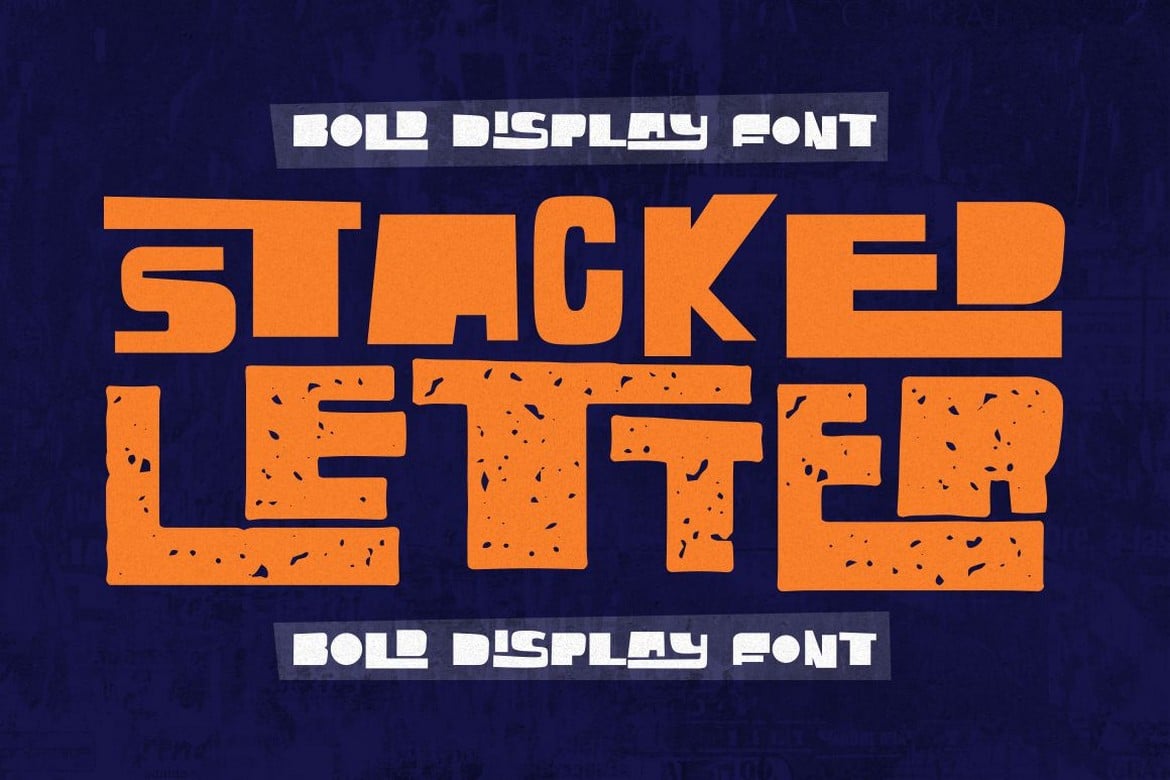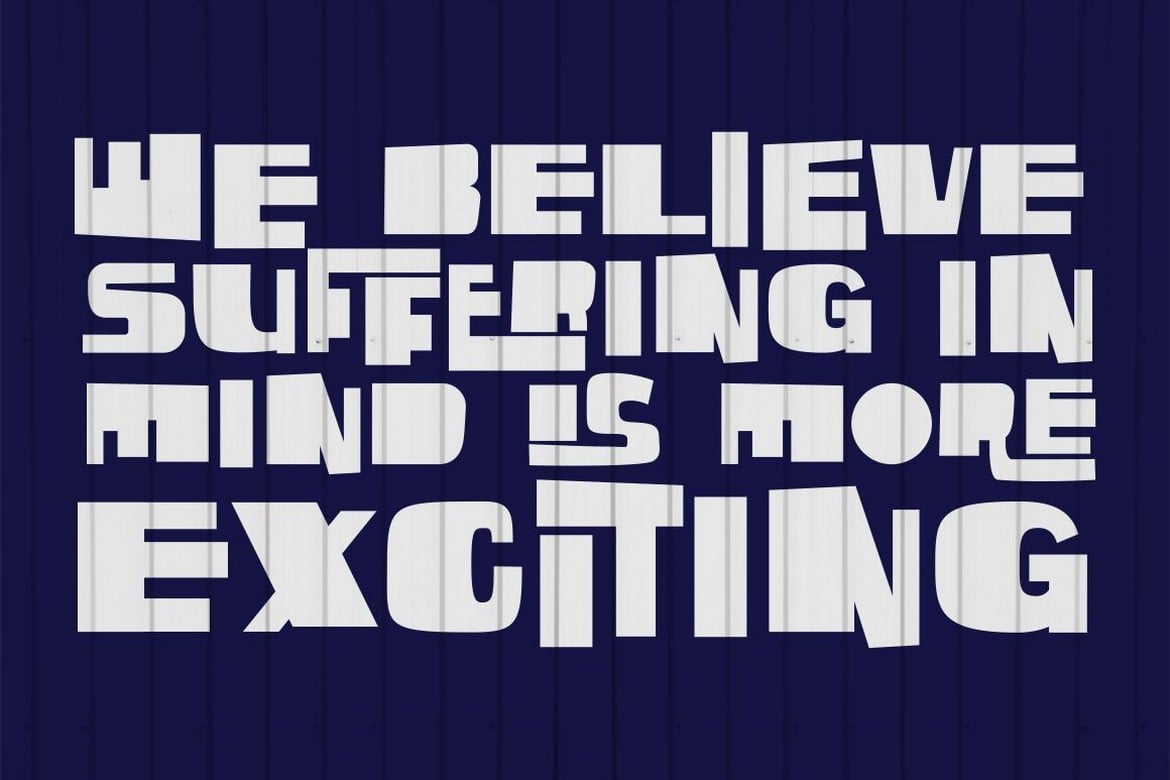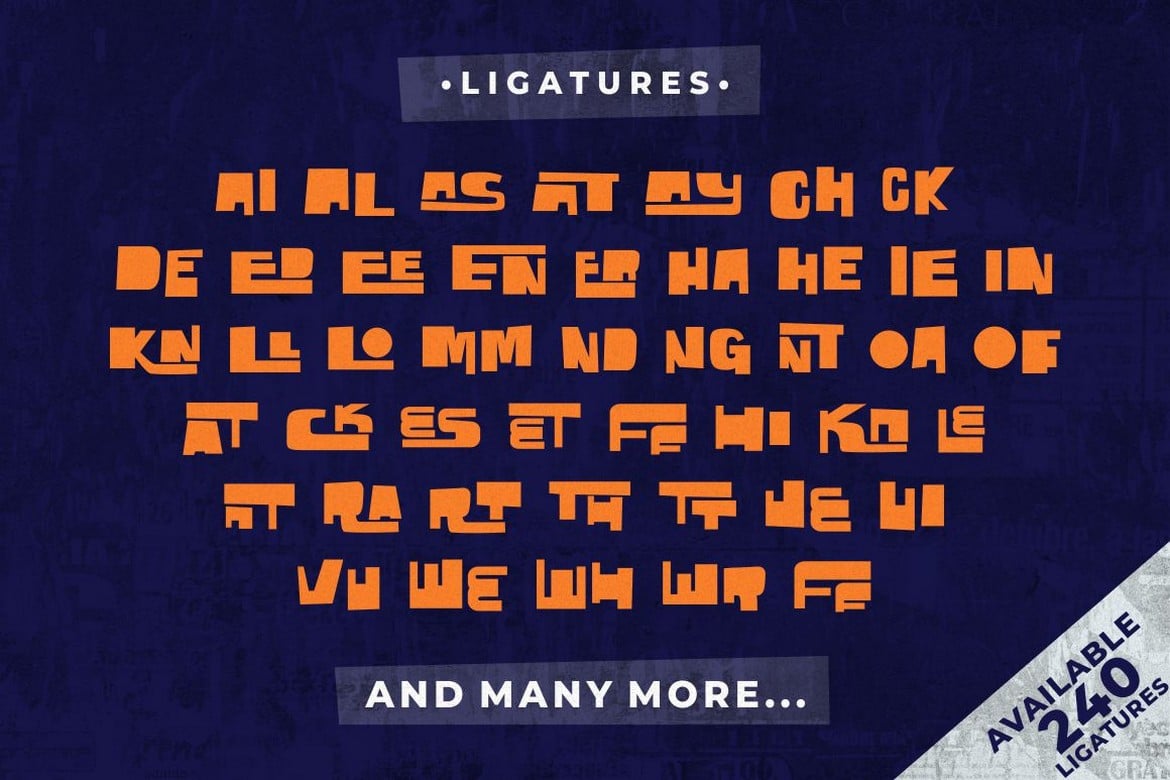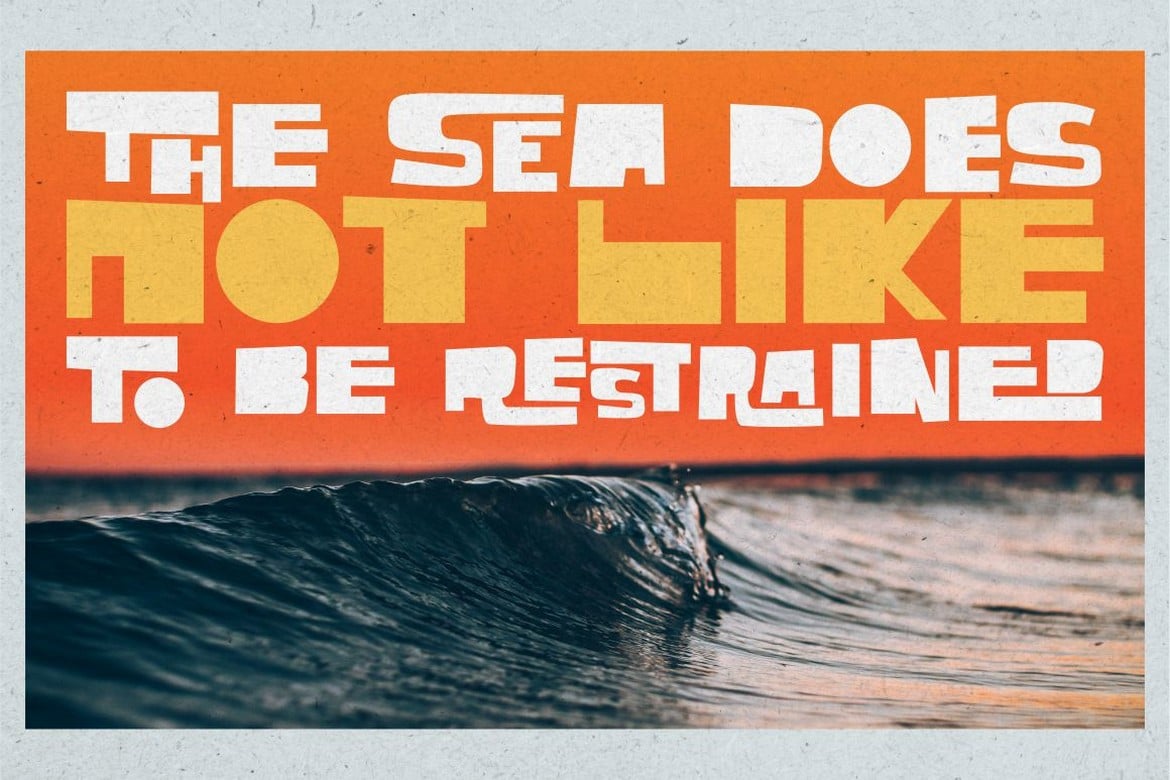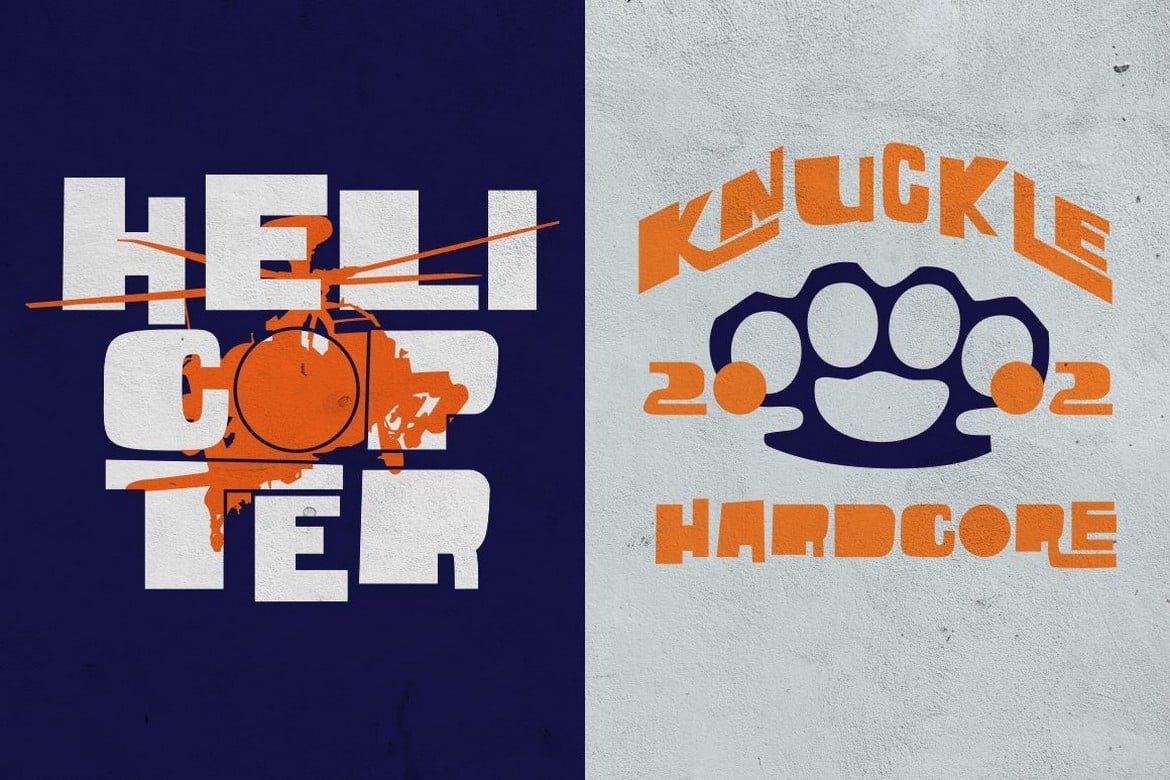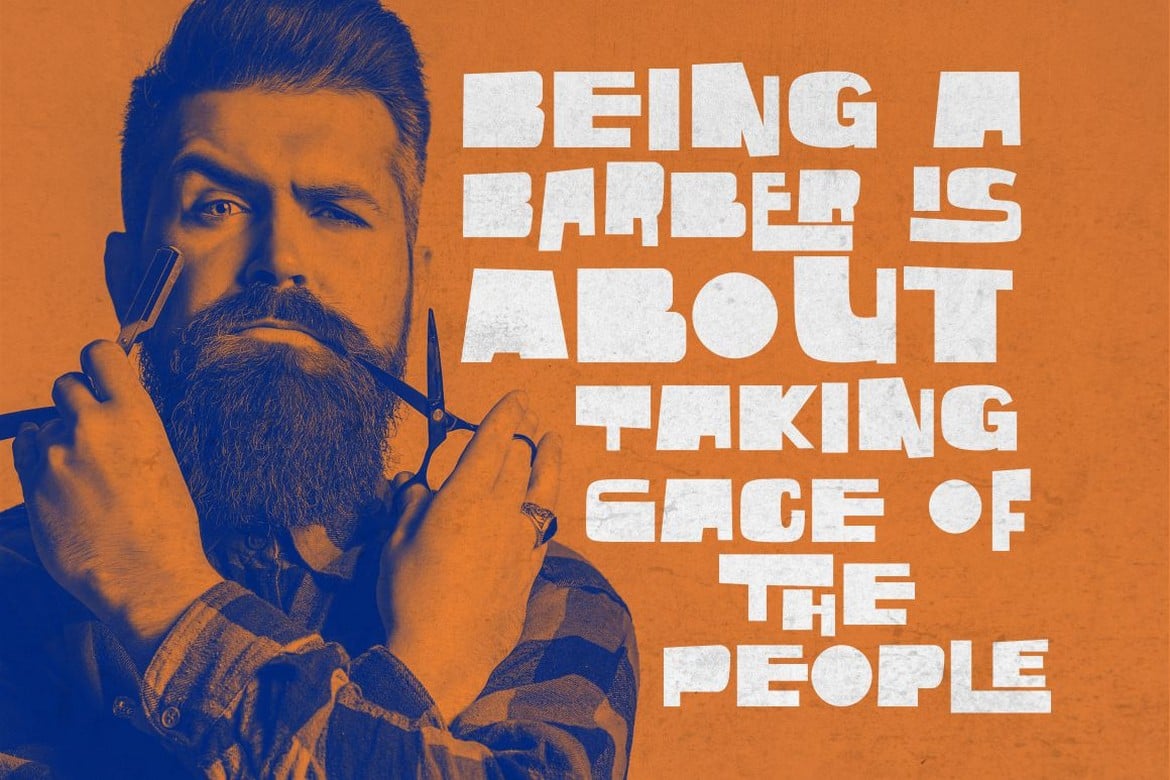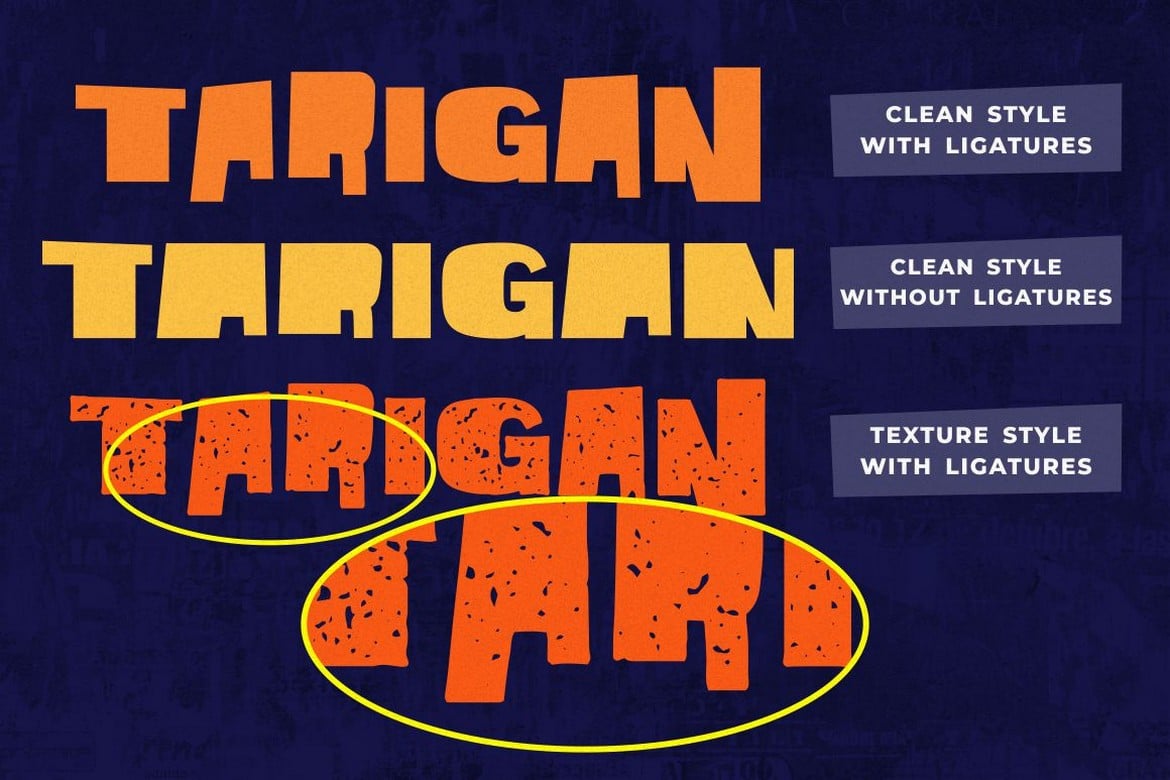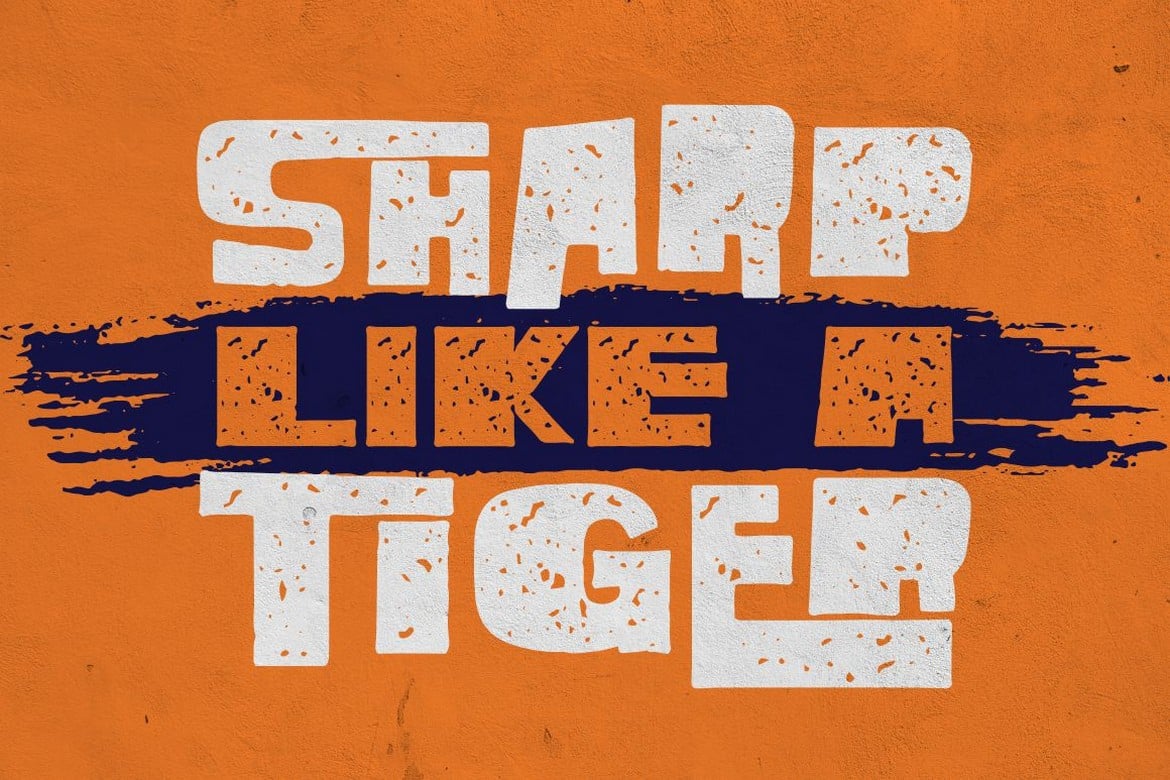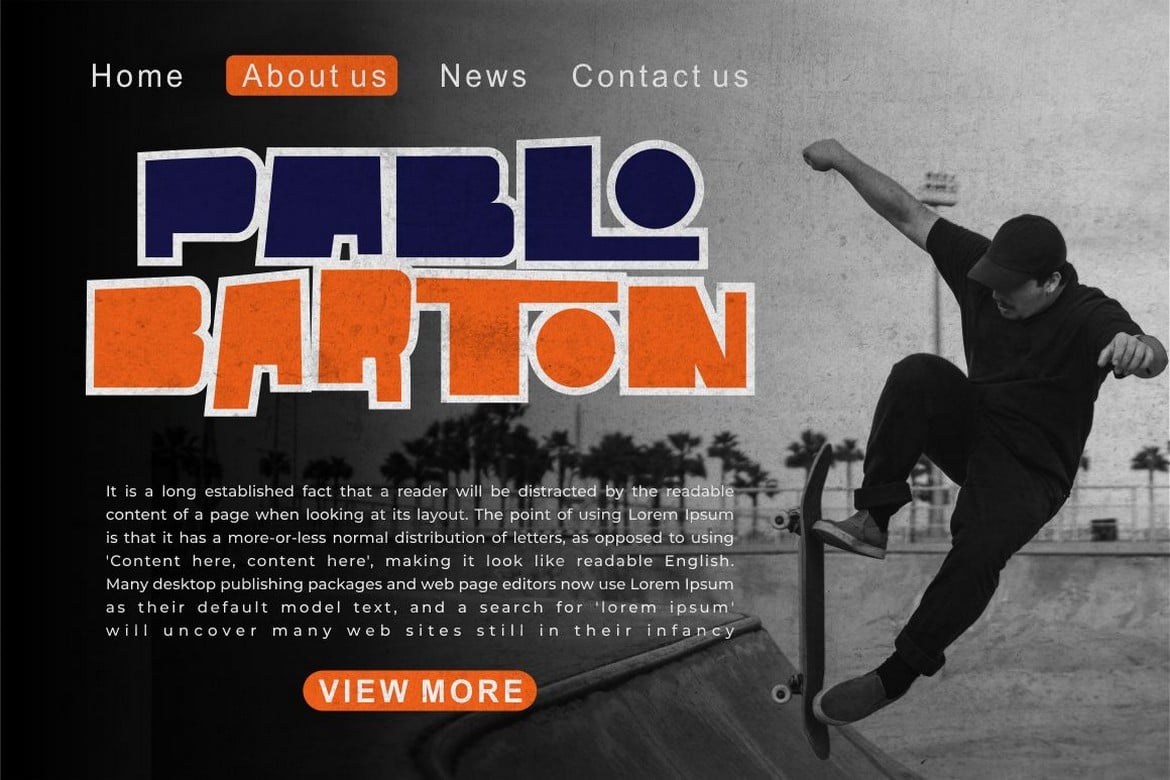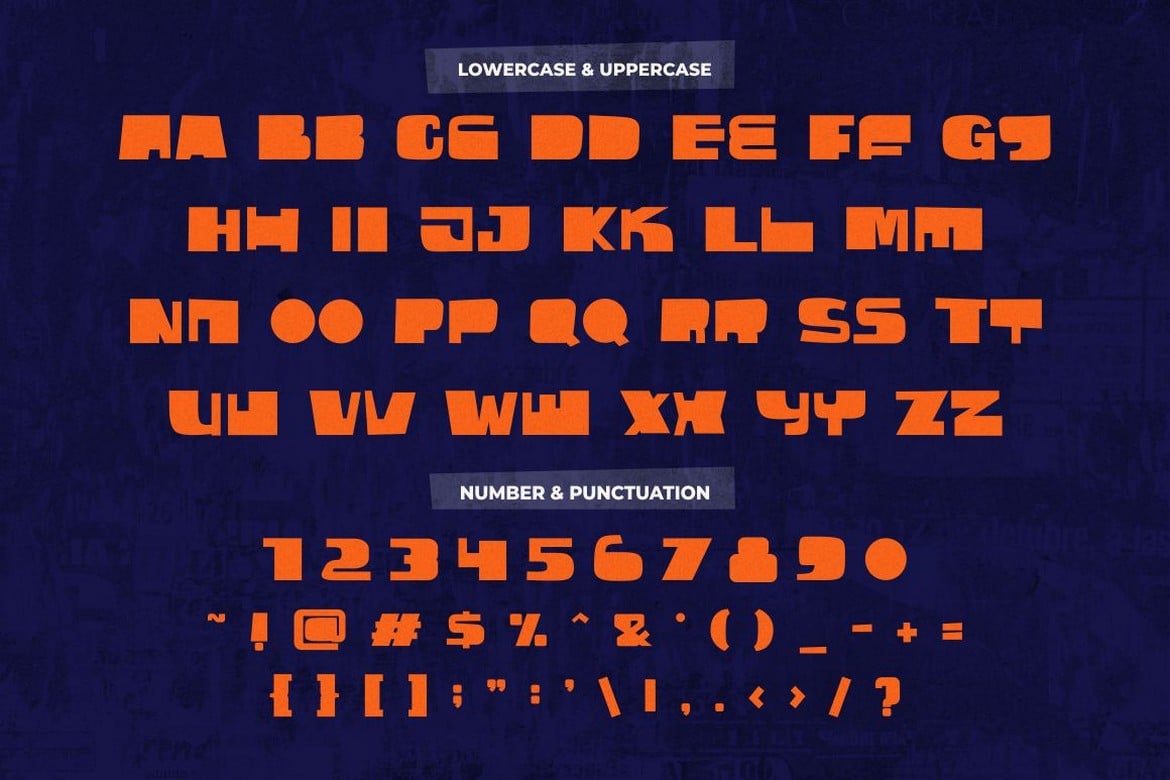
Stacked Letter – Bold Display Font
Stacked Letter – Display Font a bold, quirky display font with a fun, trendy street style vibe. Stacked Letter was hand-drawn, making its outlines somewhat irregular and quirky. It has an almost hand-lettered look; the characters jump around the baseline giving it a charming but urban look and feel. Stacked Letter suitables from posters designs to t-shirts and packaging, Stacked Letter will give your designs that alternative look and make your creative work look amazing.
With a Stacked Letter , it will be very suitable for your project, which is related to fun, trendy street style vibe. Such as story books, illustrations, comic books, posters, greeting cards, logos, branding, stickers, svg, crafting.